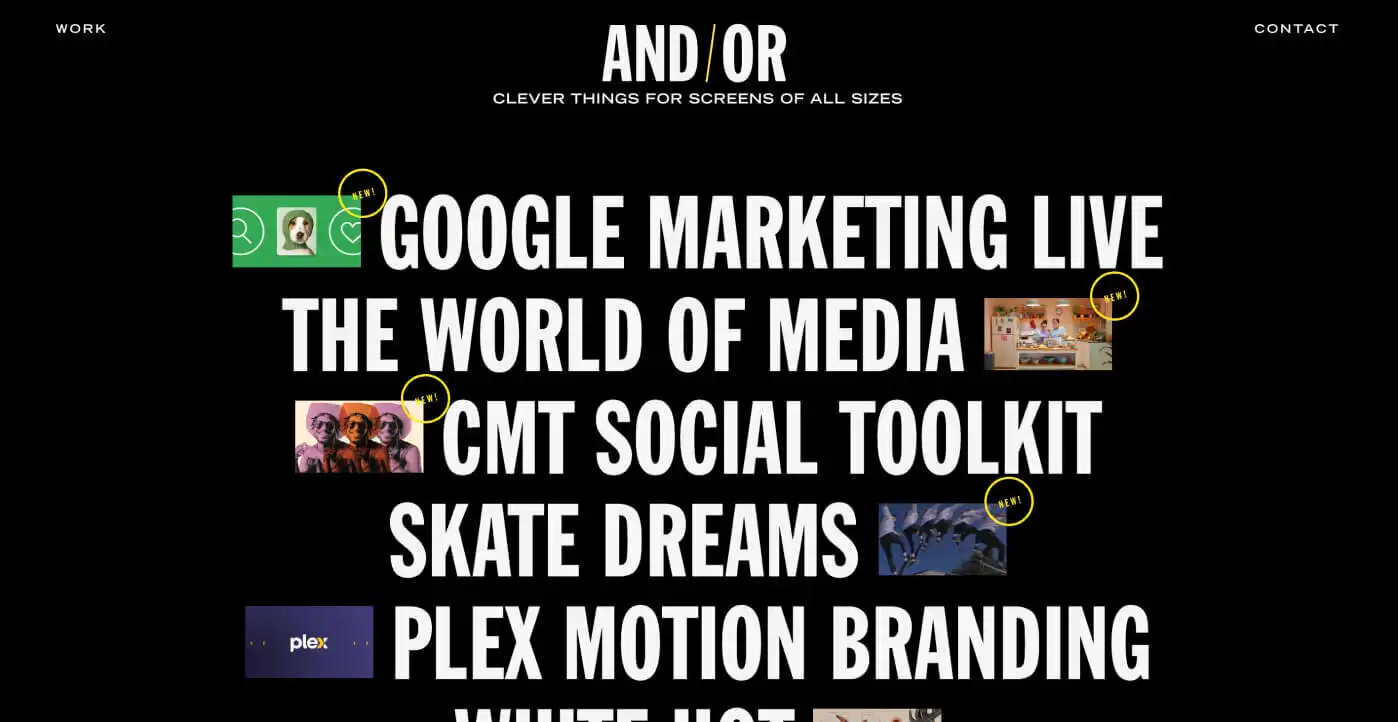
Trade Gothic Next Font is an incredibly adaptable typeface, making it suitable for a vast array of design projects. Envision it bringing a modern edge to website body text, ensuring readability in a comprehensive annual report, or providing a clean, professional look for corporate branding materials. Its robust yet refined character makes it perfect for editorial layouts, user interfaces, and even signage, where clarity and impact are paramount. This font excels in environments where a strong, no-nonsense aesthetic is desired without sacrificing an ounce of sophistication.
What makes Trade Gothic Next Font truly exciting is its remarkable evolution from a classic workhorse typeface. It retains the enduring strength and versatility of its predecessor, Trade Gothic, while incorporating the refined details and expanded character sets demanded by contemporary design. This harmonious blend of heritage and modernity results in a font that feels both familiar and fresh. Its clean lines, optimized spacing, and excellent legibility across various sizes make it a reliable choice for delivering information effectively and stylishly, captivating the viewer with its understated power.
The Trade Gothic Next Font family is exceptionally extensive, offering a wide spectrum of weights and widths to give designers maximum flexibility. You can typically find a comprehensive range of weights, from ultra-light to heavy, allowing for precise control over visual hierarchy. Furthermore, the availability of condensed and extended widths means you can tailor the font's footprint to fit any layout constraints. This vast selection empowers you to create dynamic and sophisticated typographic systems, ensuring that Trade Gothic Next Font Free Download provides all the tools you need for any project.